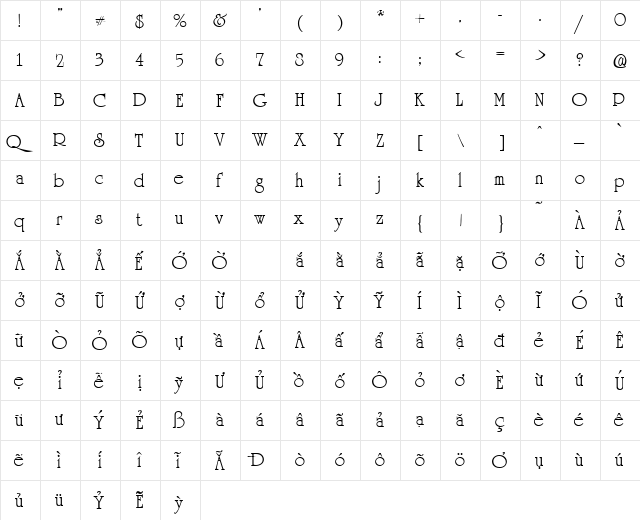
VPS Nghe An Normal
Design Context for VPS Nghe An Typeface
VPS Nghe An takes a measured approach to typography — its balanced proportions and neutral character make it a reliable workhorse for both digital and print work.